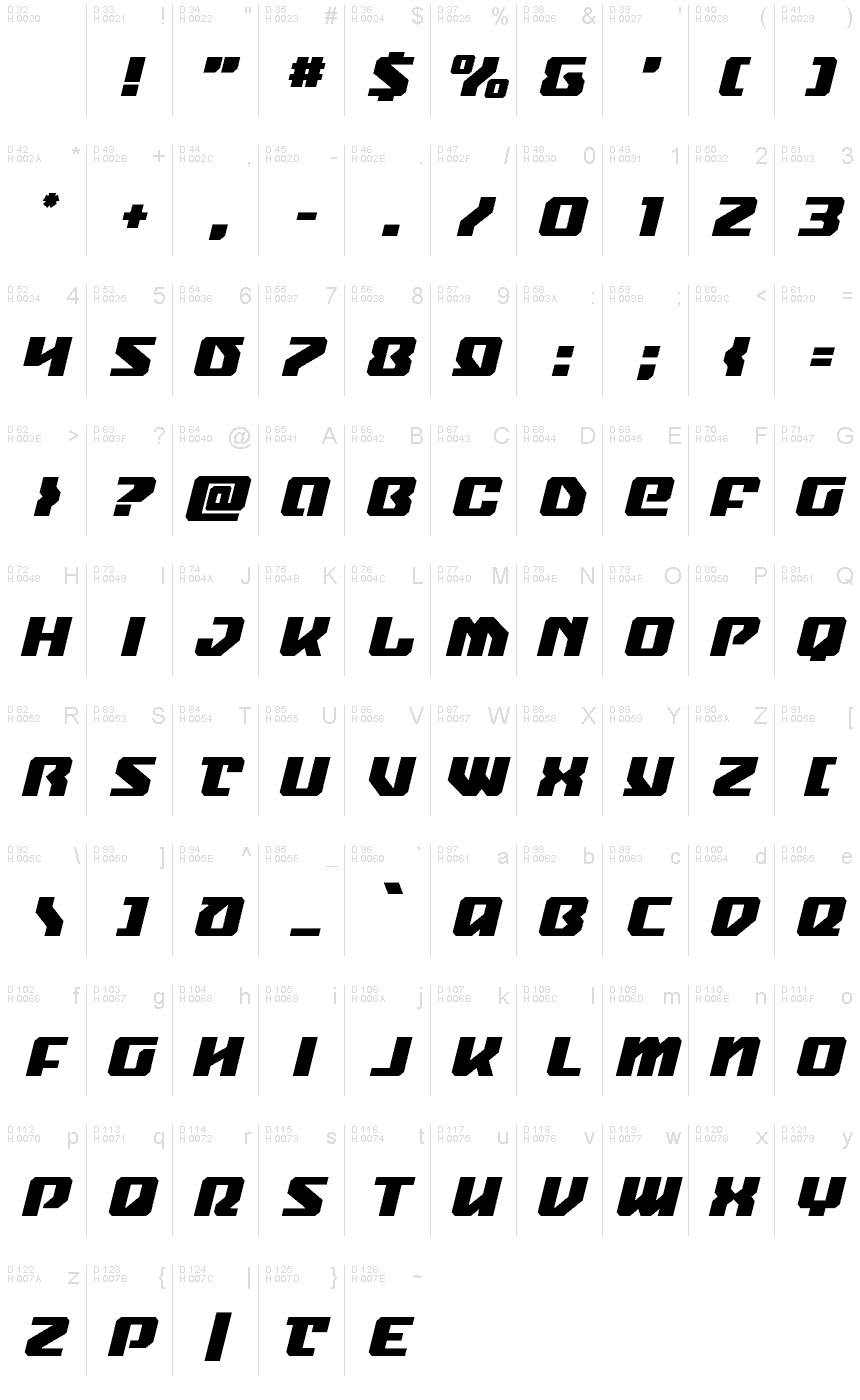
Legacy Cyborg 2 Title Italic
Legacy Cyborg 2 Title Italic font is a futuristic font that features angular geometric shapes, magnified width, and a strong presence with every character/letterform. Created by Iconian Fonts, this expanded bold font is a stunning typographic manifestation with a modern aesthetic.
Use Legacy Cyborg 2 Title Italic in magazines and editorials, on cars stickers, posters, and typography artwork. Also use it for game interfaces, movies titles, book covers, app designs, or packaged goods among other things.